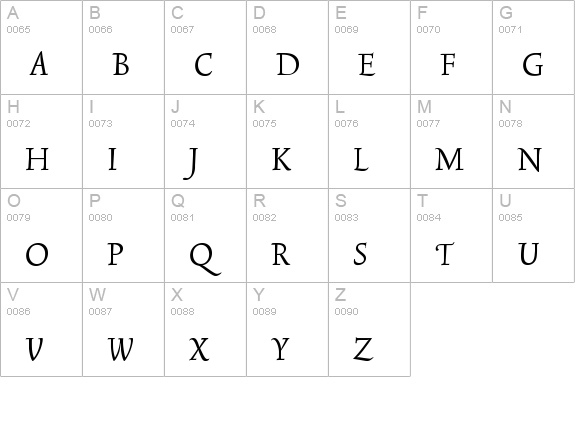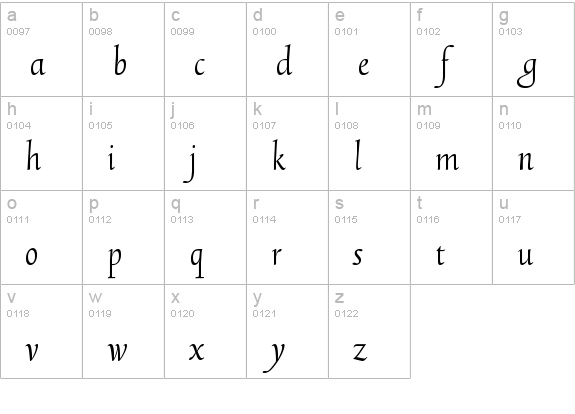
TriniteNo3-Italic is a distinctive, italic variant in the TriniteNo3 typeface family \xE2\x80\x94 well suited to design and typography projects.
TriniteNo3-Italic font is a stunning and elegant typeface that exudes sophistication and style. Its delicate and flowing curves add a touch of grace to any design, making it perfect for both print and digital projects. The italicized form of TriniteNo3-Italic font adds a sense of movement and dynamic energy, making it an ideal choice for conveying a sense of excitement and modernity. This font is not only visually appealing, but it also offers a high level of versatility. It can be used for various design purposes, such as logos, branding materials, invitations, headlines, and much more. The TriniteNo3-Italic font is designed to catch the eye and leave a lasting impression. One of the best features of TriniteNo3-Italic font is that it is freely available to download at FontsMarket.com. This means that you can access this font without any cost, allowing you to explore its endless creative possibilities without any limitations. Whether you are a professional designer or a creative enthusiast, this font will surely become a valuable addition to your typographic arsenal. With its timeless elegance and effortless beauty, TriniteNo3-Italic font is sure to elevate your designs and make them stand out from the crowd. So why wait? Download TriniteNo3-Italic font today and unleash your creativity like never before.